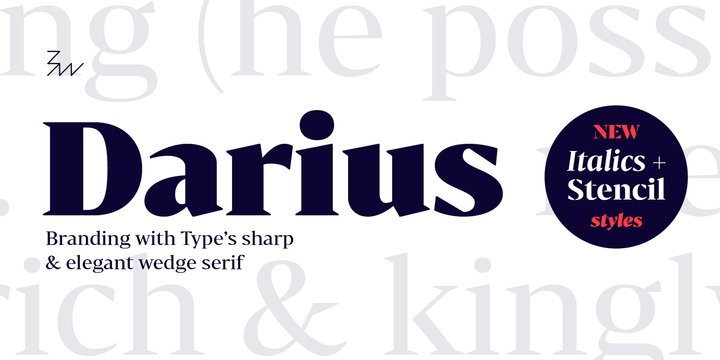
Bw Darius Font
Bw Darius Font is perfect for powerful corporate branding, commanding logo design, authoritative marketing materials, strong business communications, bold presentation graphics, impressive packaging solutions, leadership-focused campaigns, executive level materials, dominant brand identities, and influential digital platforms.
What makes Bw Darius Font so exciting is its commanding authority that combines imperial strength with contemporary sophistication, creating typography that embodies leadership excellence and uncompromising quality. This powerful typeface represents executive presence and strategic intelligence, delivering visual communication that commands respect while maintaining professional elegance and timeless appeal.
The Bw Darius Font family includes light, regular, medium, bold, and black weights, complete with authoritative design features, commanding styling elements, and leadership characteristics that provide designers with comprehensive tools for creating powerful and memorable typography that embodies executive excellence and strategic authority.
The authoritatively designed letterforms of Bw Darius Font showcase commanding elegance with executive character that creates instant recognition of leadership quality and strategic intelligence. Each character displays meticulous attention to maintaining the powerful presence that defines executive authority while ensuring contemporary readability and professional versatility. The font's commanding construction and authoritative spacing contribute to its powerful appearance and leadership appeal.
Executive brands and leadership-focused organizations consistently choose Bw Darius Font for projects requiring commanding authority and strategic sophistication. The comprehensive character set includes uppercase and lowercase letters, numerals, extensive punctuation, international accents, and leadership-inspired elements that provide complete support for executive branding applications and authoritative design compositions.
The commanding versatility of Bw Darius Font ensures exceptional performance across both traditional print and modern digital platforms. Whether developing executive brand identities, creating leadership marketing campaigns, or designing authoritative corporate materials, this remarkable typeface delivers consistent power that resonates with audiences seeking strategic excellence and executive-level quality.